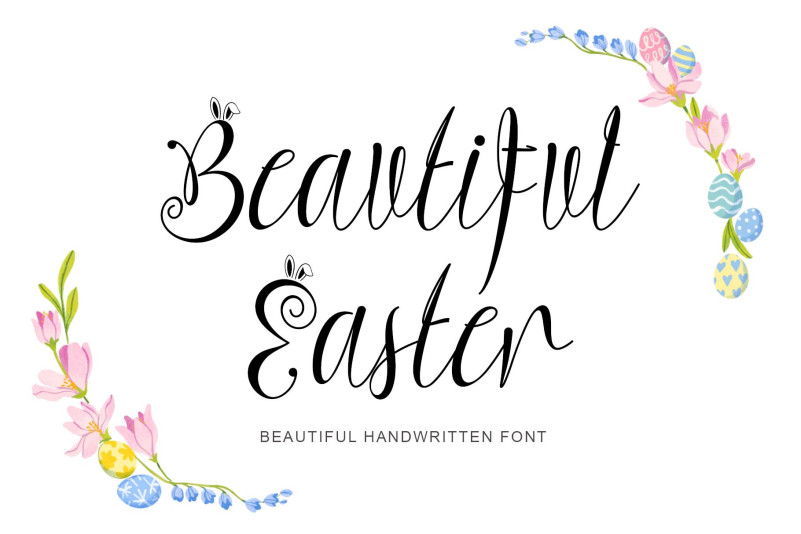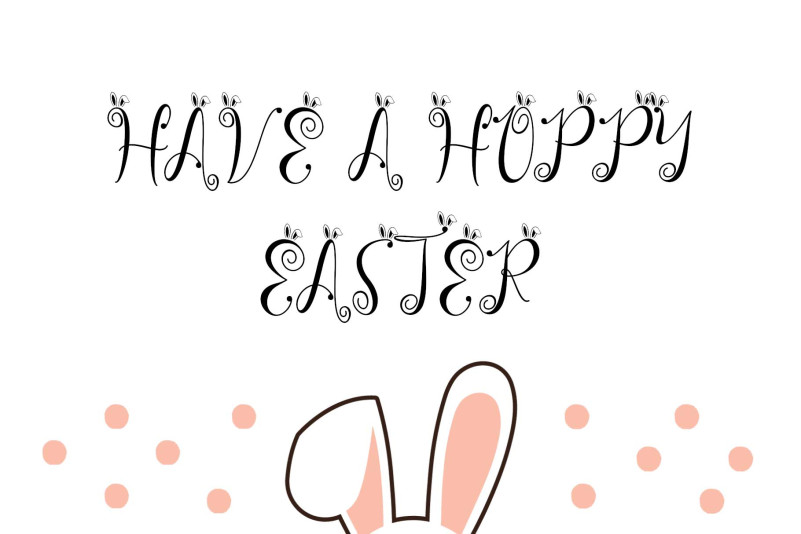
Beautiful Easter Font
Beautiful Easter Font is a quirky and cute handwritten font. This font is decorated with bunny ears in uppercase. It is suitable for Easter, spring, wedding moments, and others.